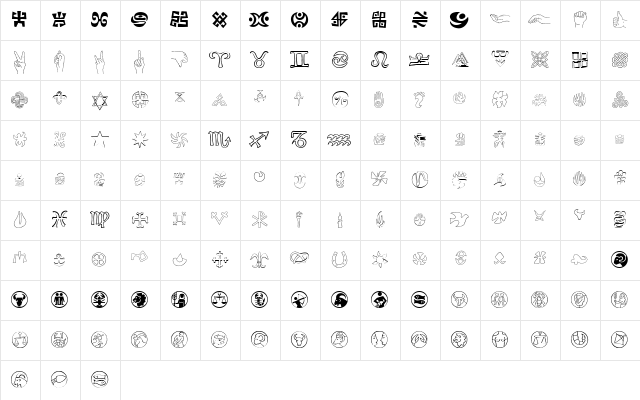
Complete Frutiger Capitalis Signs glyph index. Displaying only characters natively supported by Frutiger Capitalis Signs font.
Frutiger Capitalis is a composed and adaptable typeface that performs quietly and consistently across a wide range of design contexts.